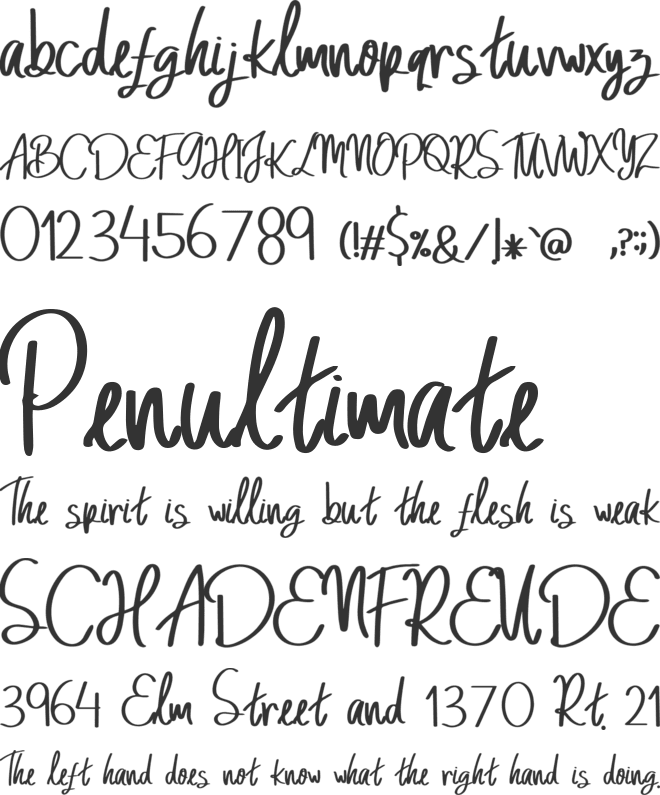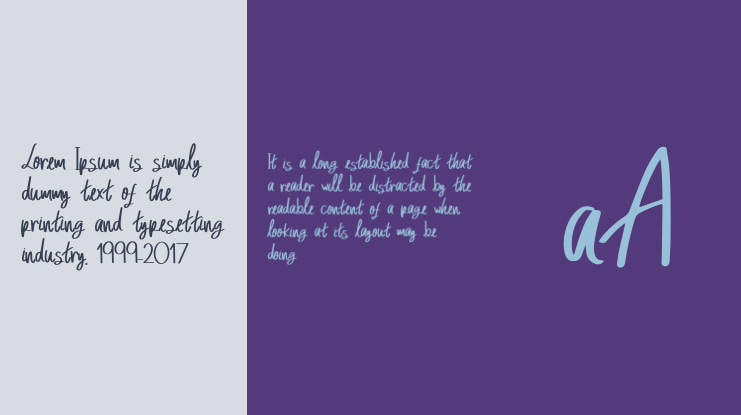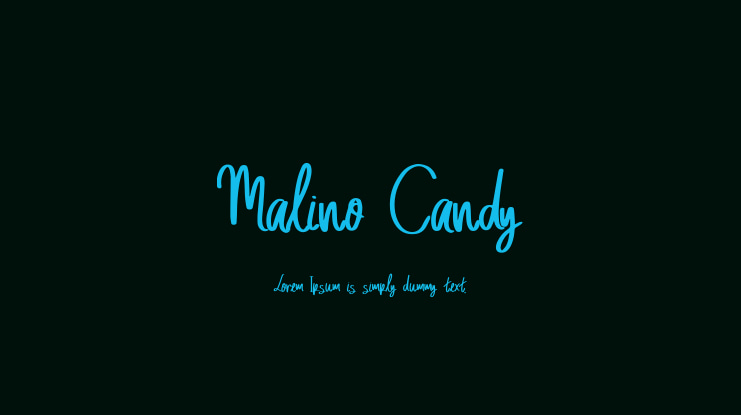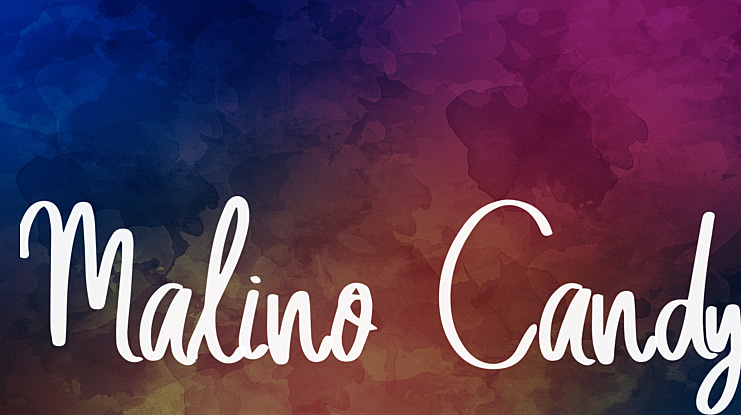
Malino Candy Font
Malino Candy is a handwritten font with sweet and lovely theme. With its beautiful and elegant curve, this font will make both your design stand out even more.
Malino Candy Font is suitable for variety of branding projects, logos, invitations, social media posts, advertisements, and so much more. Let’s make people heart melt with this sweet font!